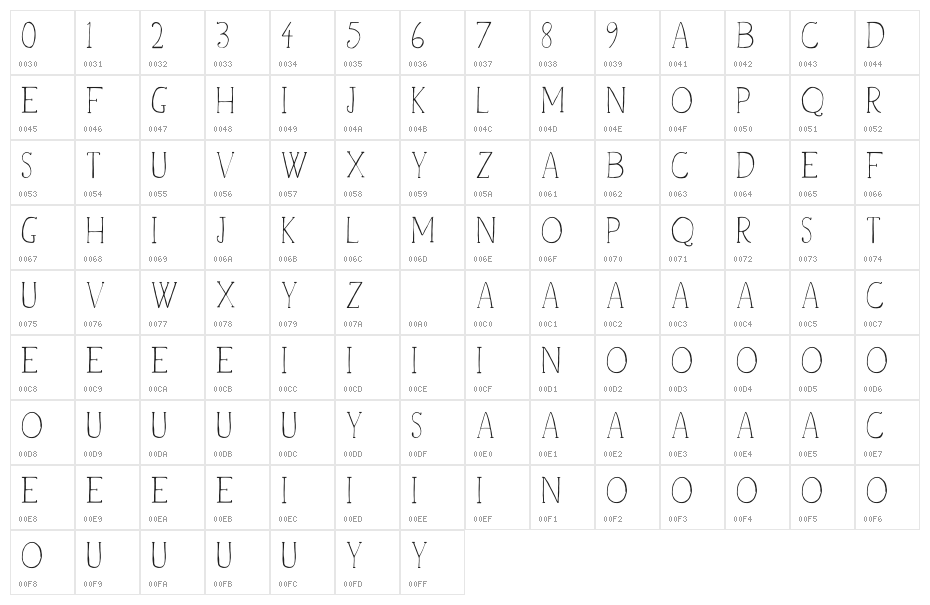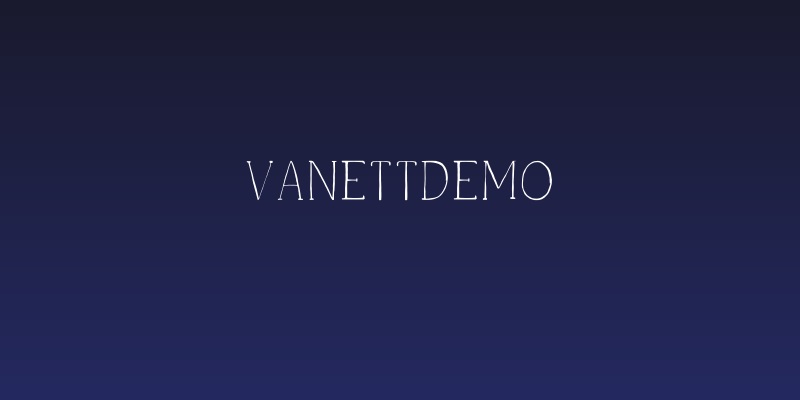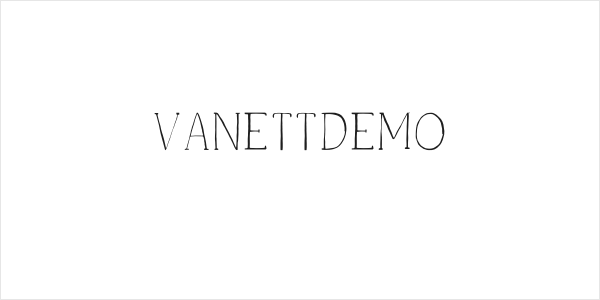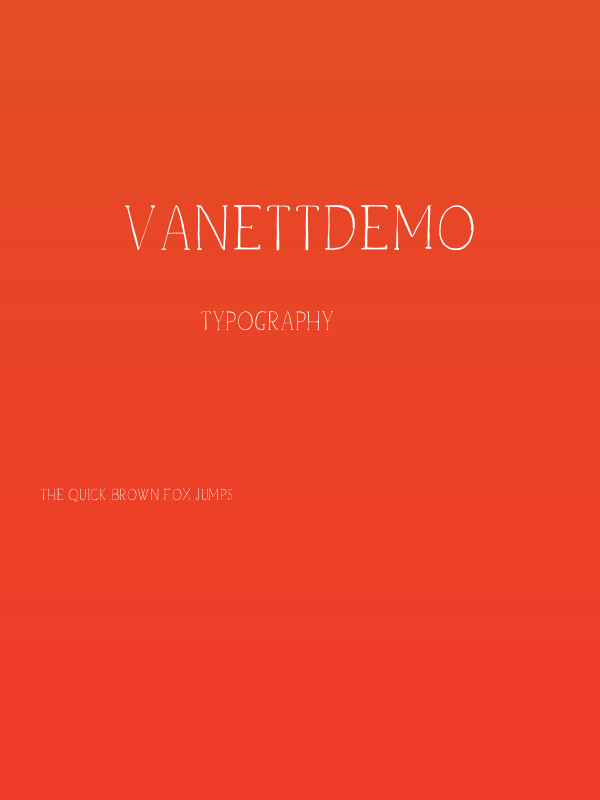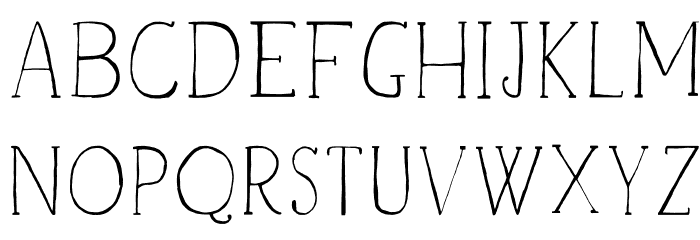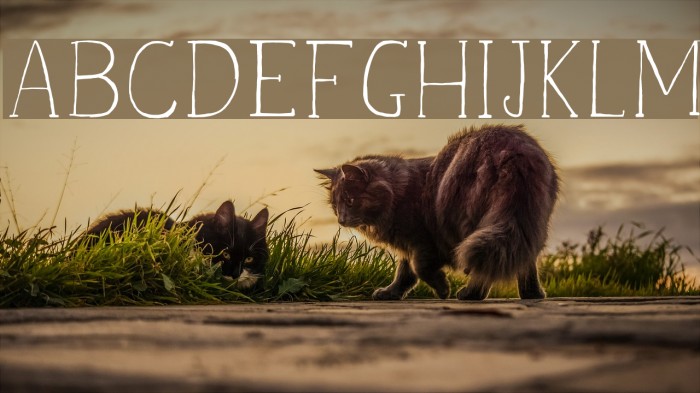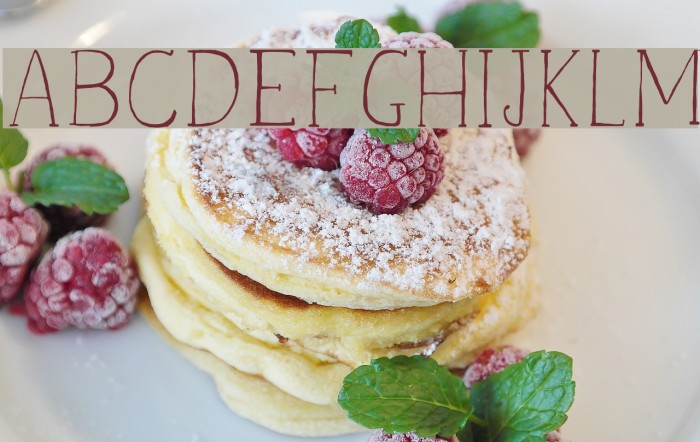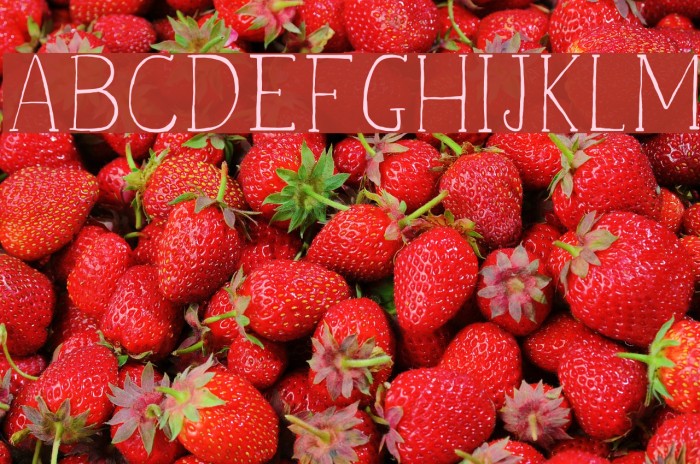
VanettDemo Font
VanettDemo Description
This font features a hand-drawn, artistic style with a slightly irregular and organic appearance. The characters are tall and slender, with a subtle elegance that suggests a handcrafted touch. The uppercase letters have a consistent height, while the lowercase letters maintain a harmonious balance with the uppercase. The numerals are distinct and clear, matching the overall aesthetic. The strokes vary slightly in thickness, adding to the font's unique charm. This font is ideal for projects that require a personal, artistic touch, such as invitations, greeting cards, or creative branding.
| Overall Style | Artistic |
| Use Case | Creative projects, artistic branding, invitations |
| Proposed Projects | Ideal for invitations, greeting cards, artistic branding, and creative projects. |